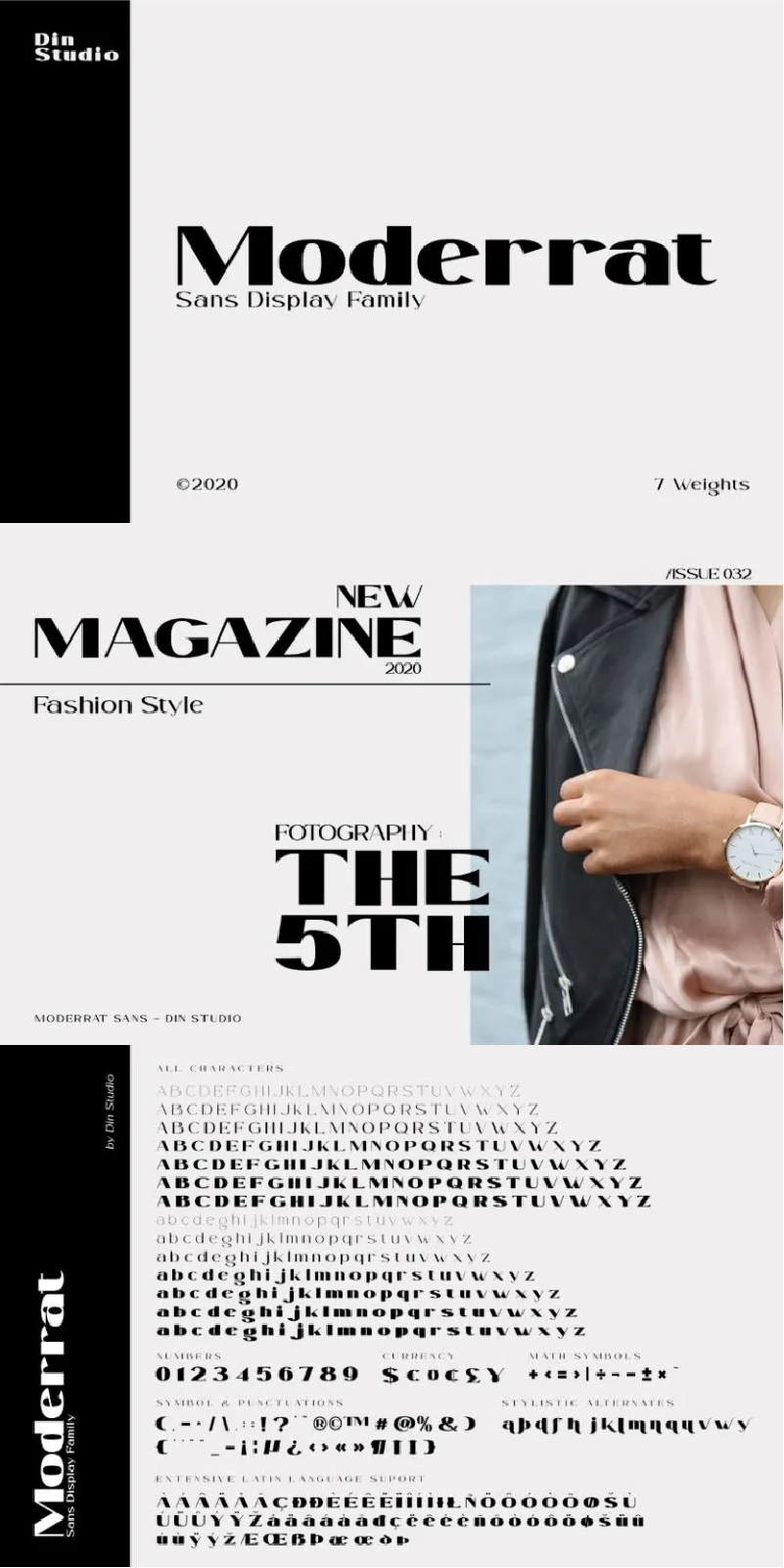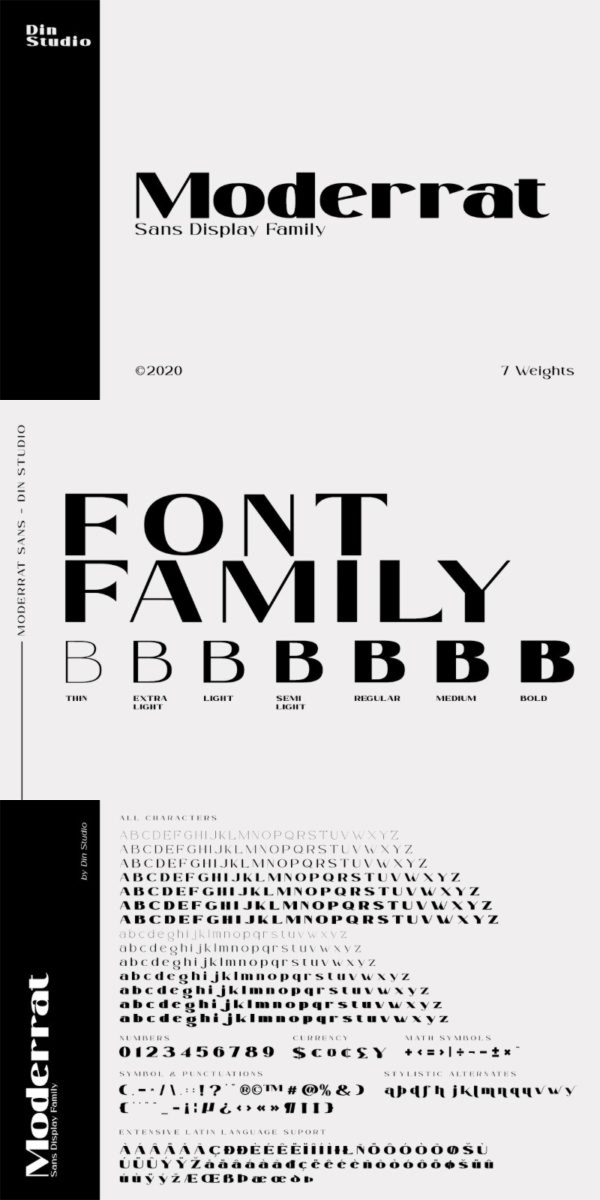
Moderrat Font
About Moderrat
Moderrat Sans Serif Font Family is created by Din Studio featuring 7 fonts. The modern design of typeface will make your designs more powerful. The font is suitable for any projects, like webs, signages, corporates, as well as for editorial designs and so on. See the previews above to get some inspiration on how you can use them. Enjoy the font!
- Numeral and Punctuations